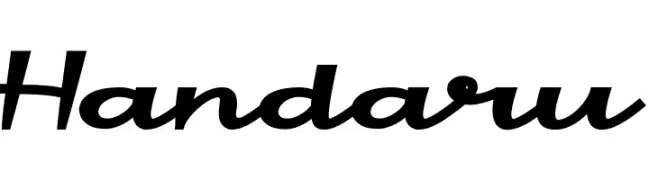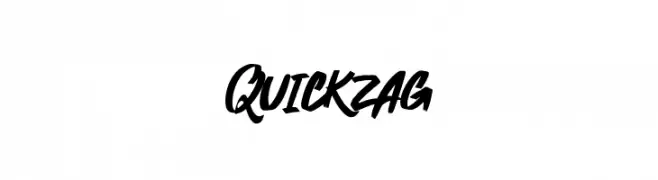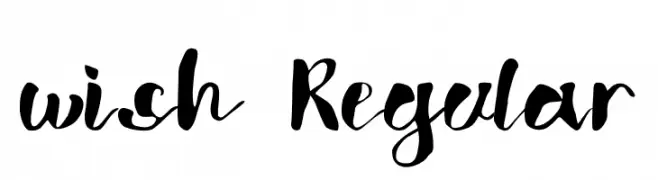
A bold, brush-style font with dynamic, slanted strokes.
A bold, gothic-inspired font with sharp, angular lines.
A modern, bold sans-serif font with a clean and slightly condensed style.
A graceful script font with flowing, cursive letterforms and elegant styling.
A bold, handwritten font with a playful and energetic style.
A playful, handwritten font with bold, dynamic strokes and a casual vibe.
A lively and elegant script font with fluid, cursive strokes and interconnected letters.
A playful, casual handwritten font with smooth, flowing strokes.
A modern, geometric sans-serif font with clean lines and balanced spacing.
A light, slab serif font with a subtle blur effect, blending traditional and modern styles.